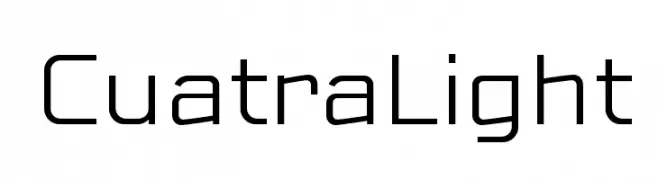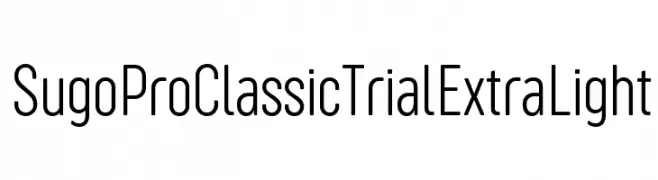
( Zetafonts - www.zetafonts.com )
A modern, geometric font with clean lines and rounded edges.
( Zetafonts - www.zetafonts.com )
A sleek, modern font with clean lines and a minimalist aesthetic.
( deFharo - Fernando Haro - defharo.com )
A modern, geometric sans-serif font with a clean and balanced design.
( imagex - www.imagex-fonts.com )
A bold, geometric font with a three-dimensional effect and strong, angular characters.
( ingoFonts - Ingo Zimmermann - www.ingofonts.com )
A modern, thin sans-serif font with clean lines and a minimalist design.
( ingoFonts - Ingo Zimmermann - www.ingofonts.com )
A thin, modern sans-serif font with clean lines and excellent readability.
( ingoFonts - Ingo Zimmermann - www.ingofonts.com )
A modern, medium-weight italic sans-serif font with clean lines and balanced proportions.
( ingoFonts - Ingo Zimmermann - www.ingofonts.com )
A modern, light sans-serif font with clean lines and balanced proportions.
( koeiekat - koeiekat.com )
A modern, geometric font with a clean, condensed style.
( mlkwsn - Malik Wisnu )
A modern, geometric sans-serif font with clean lines and balanced proportions.